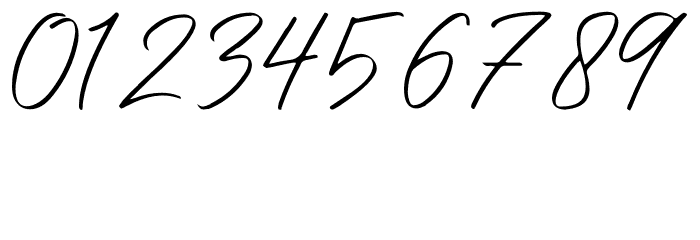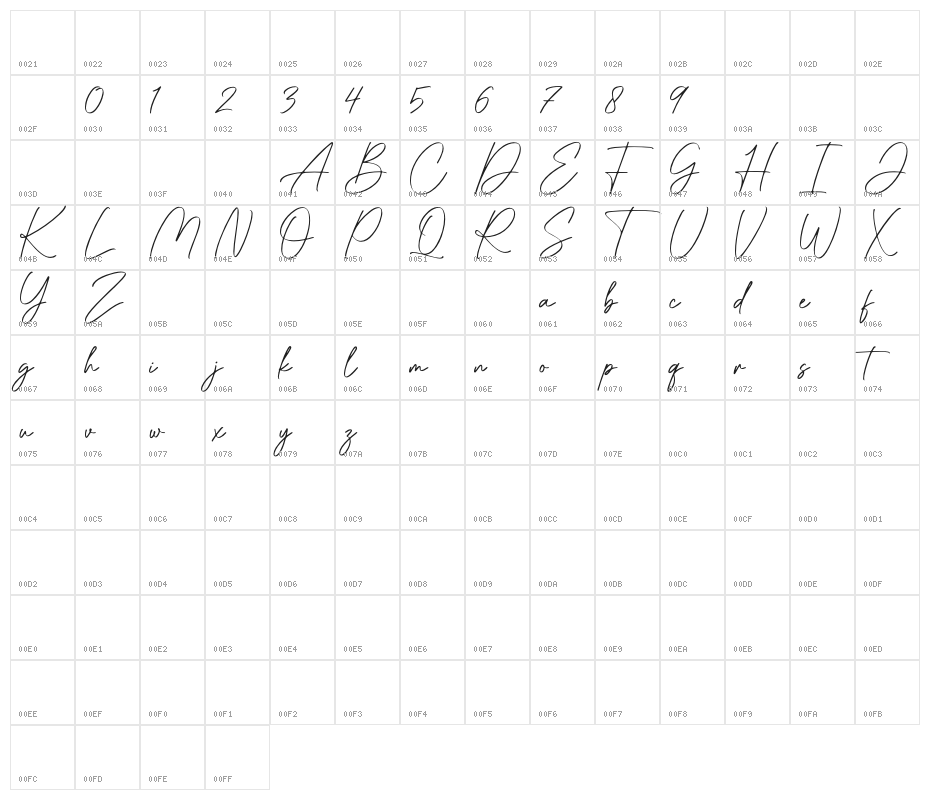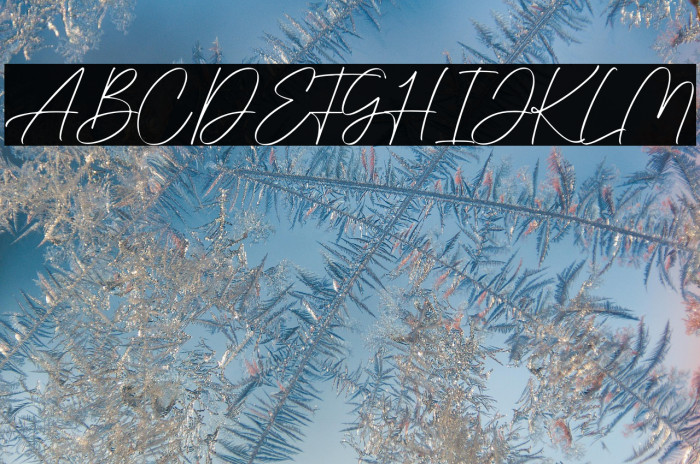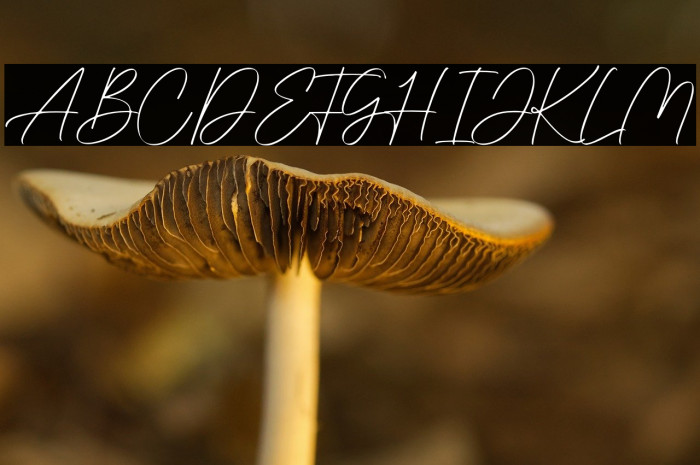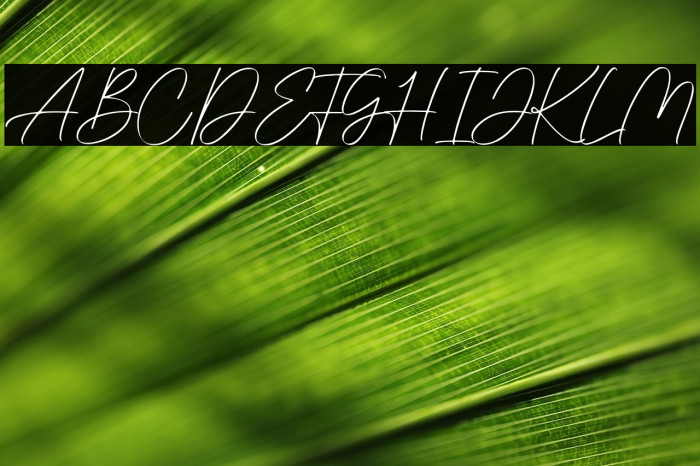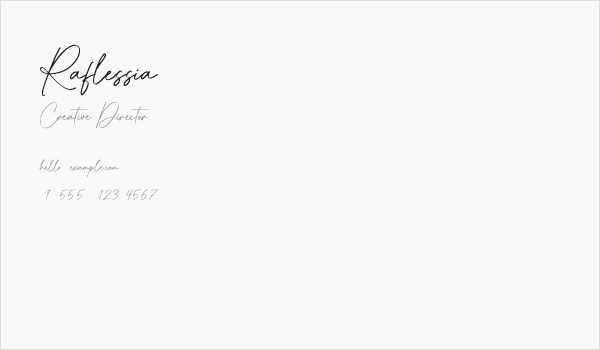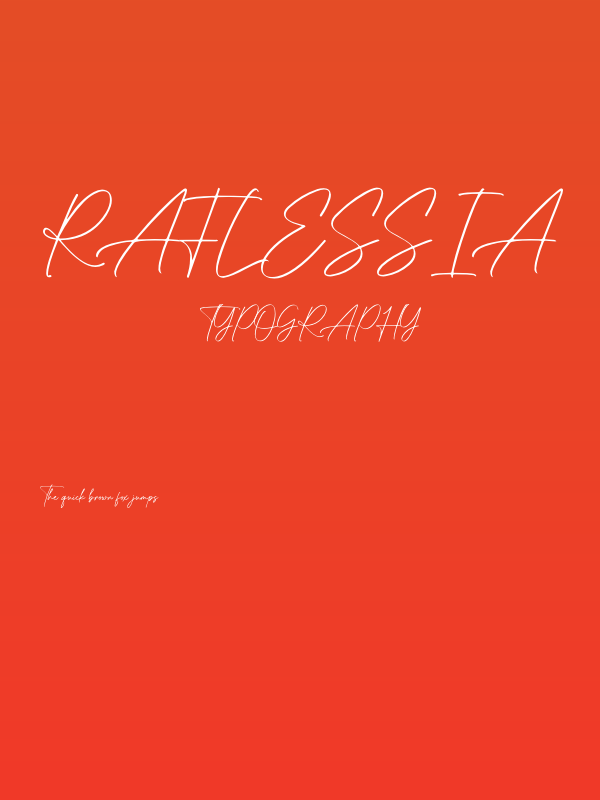
Raflessia Font
Raflessia Description
This font exudes a modern and elegant handwritten style, characterized by its fluid and cursive strokes. The uppercase letters are tall and slightly slanted, giving a sense of motion and grace. The lowercase letters maintain a consistent flow, with some characters featuring loops and swashes that enhance its decorative appeal. The numerals are clear and maintain the same cursive style, ensuring readability while preserving the overall aesthetic. This font is perfect for projects that require a personal touch or a sophisticated, yet approachable feel.
| Proposed Projects | Ideal for wedding invitations, personal branding, greeting cards, and elegant packaging designs. |